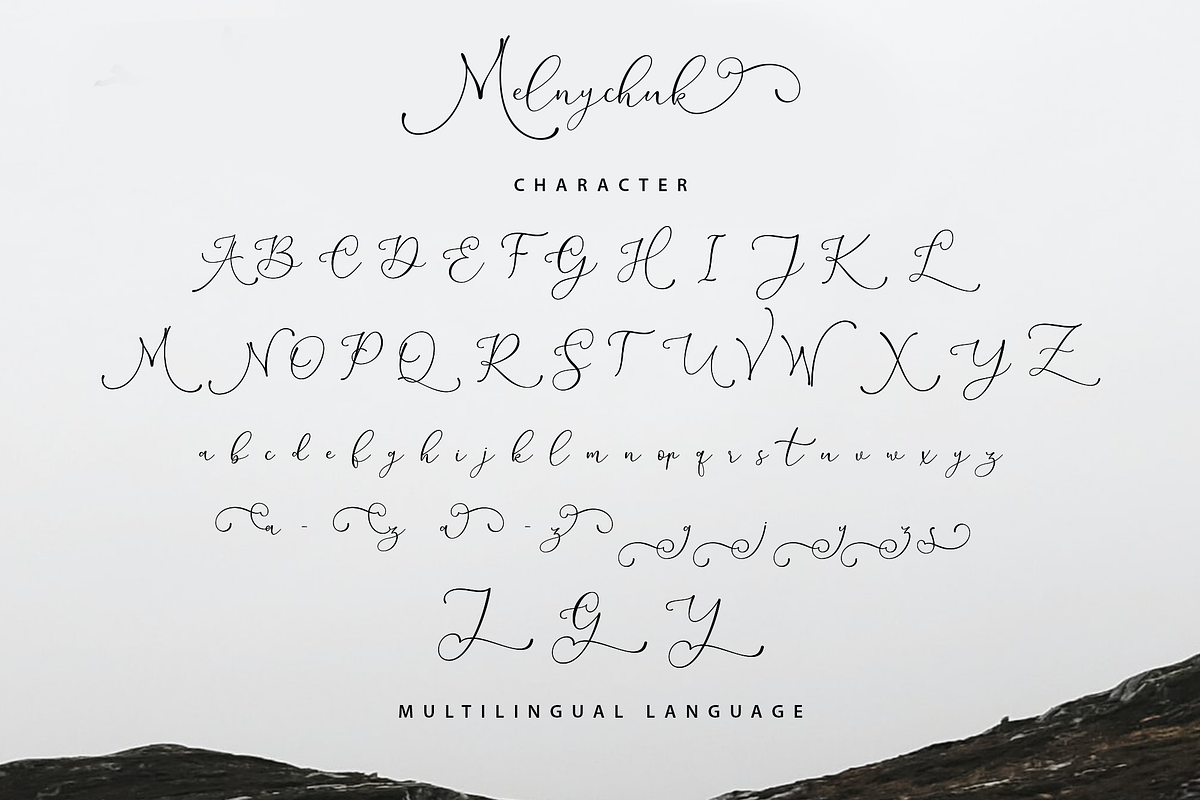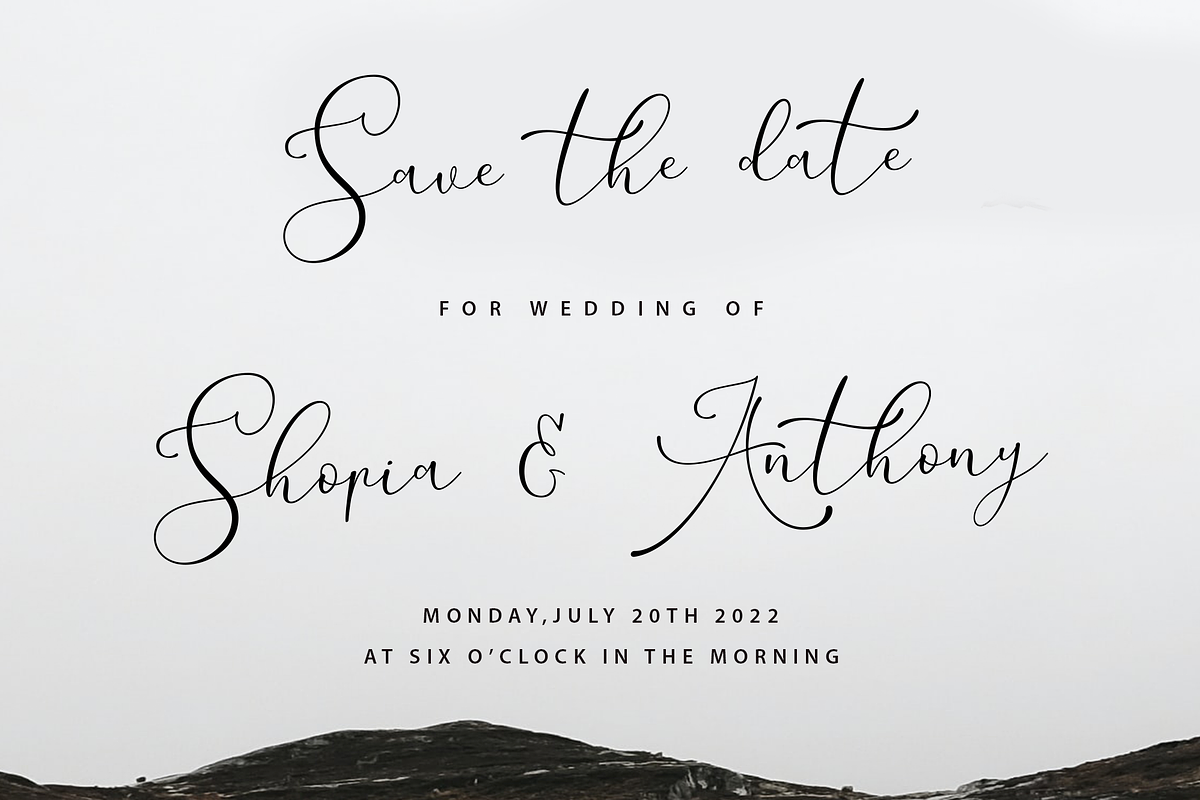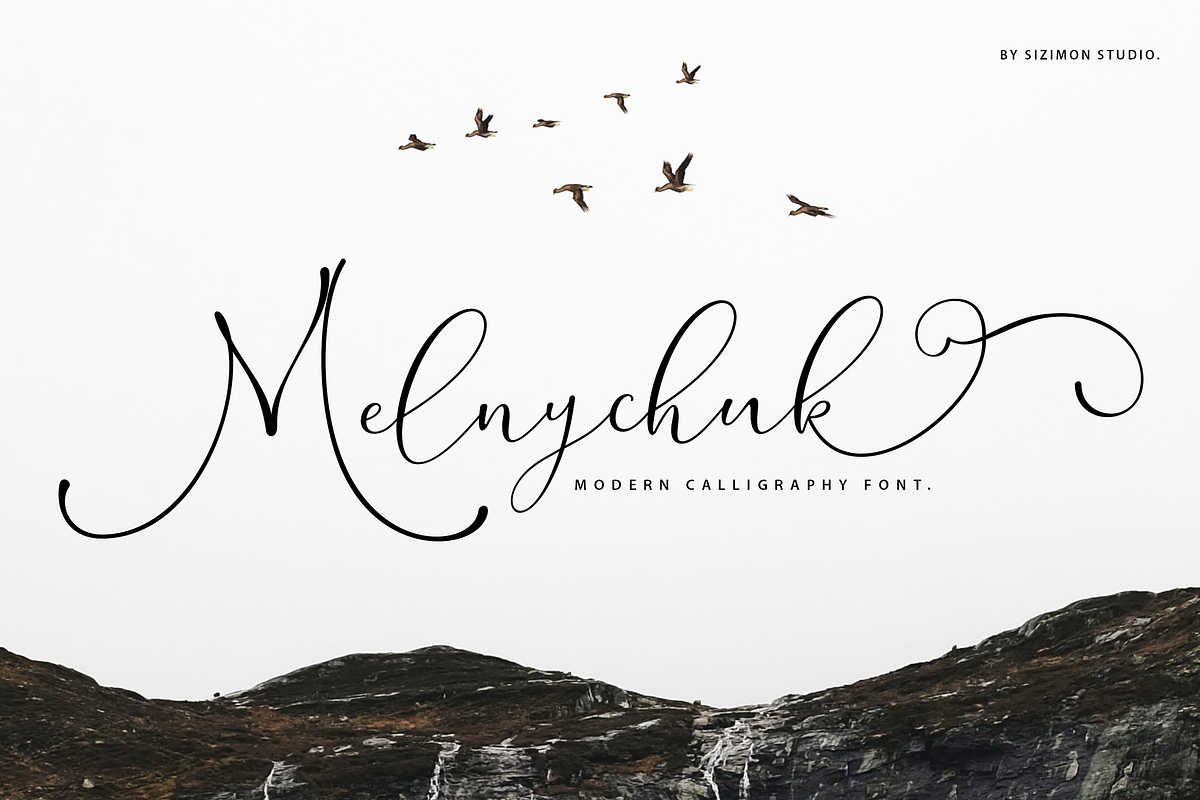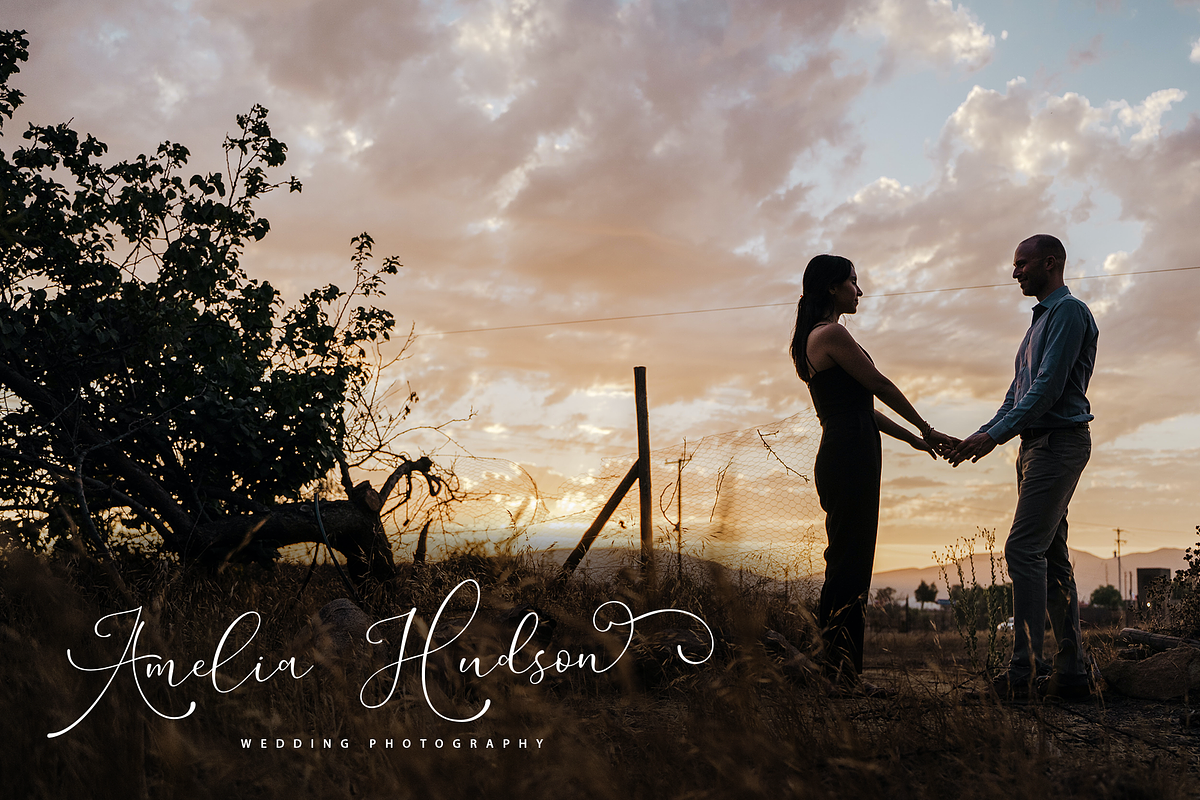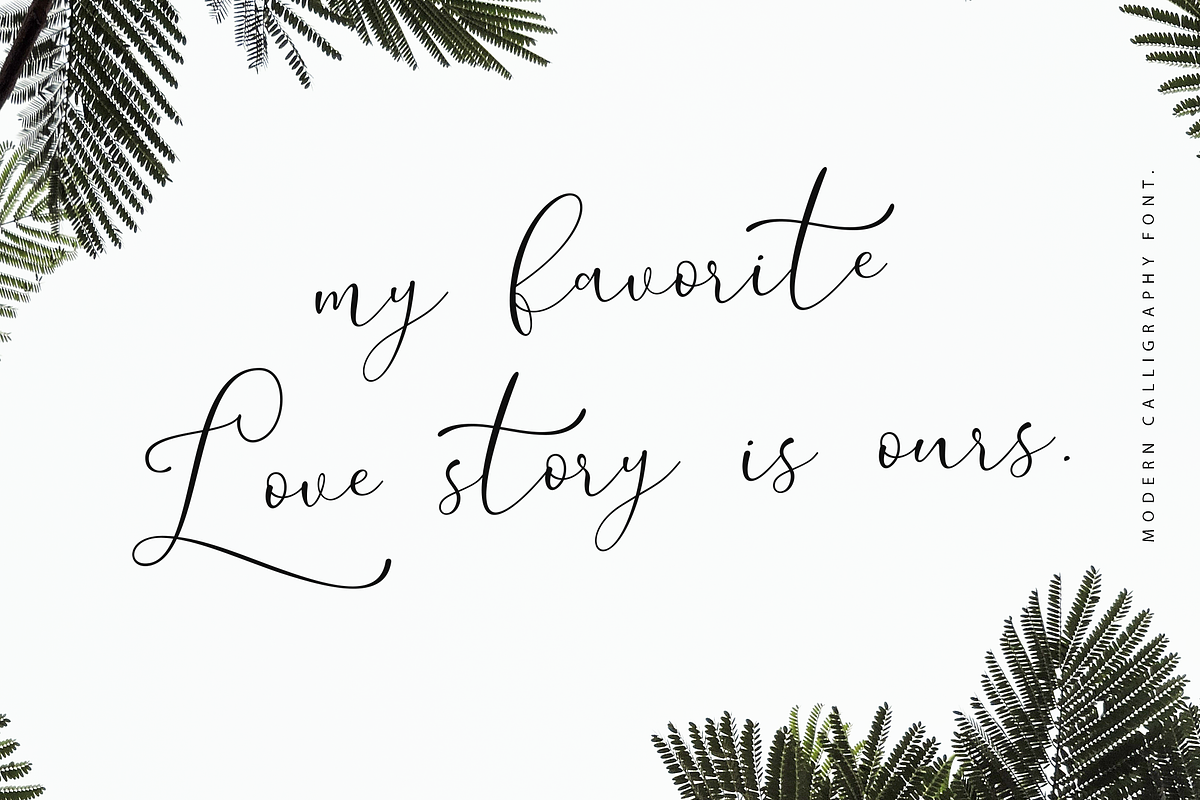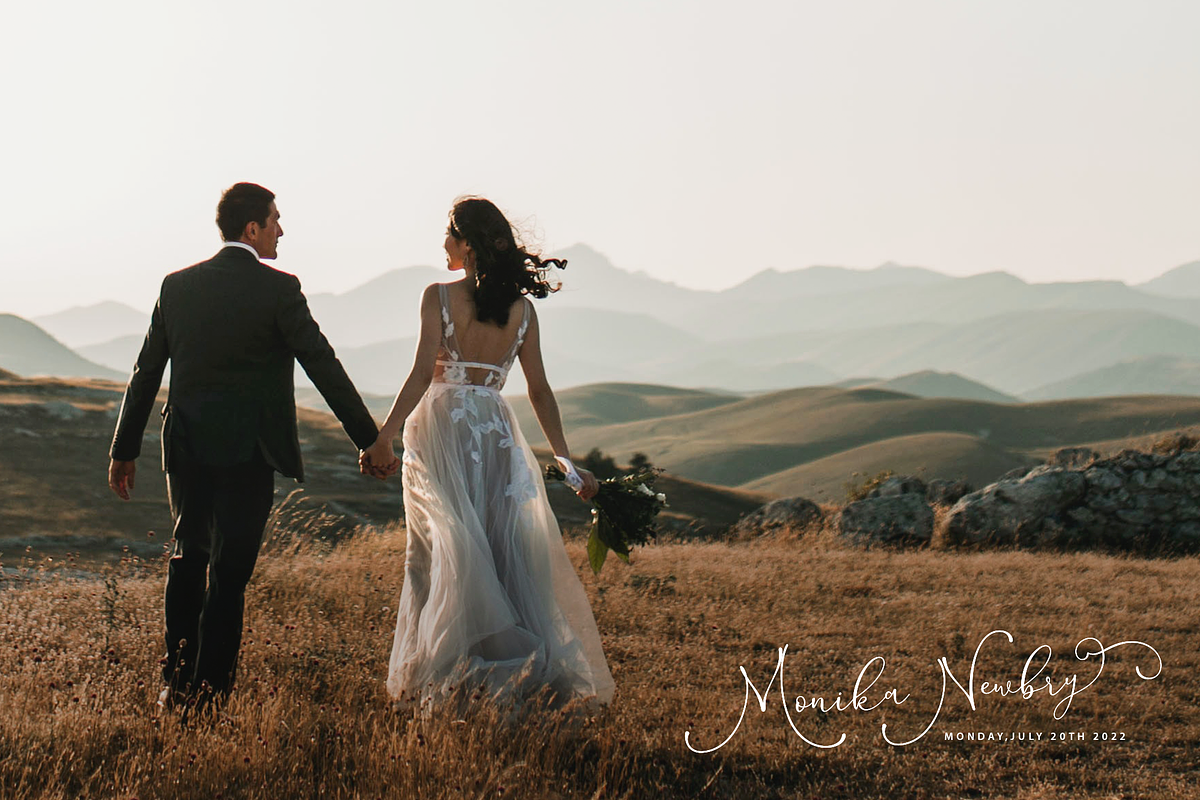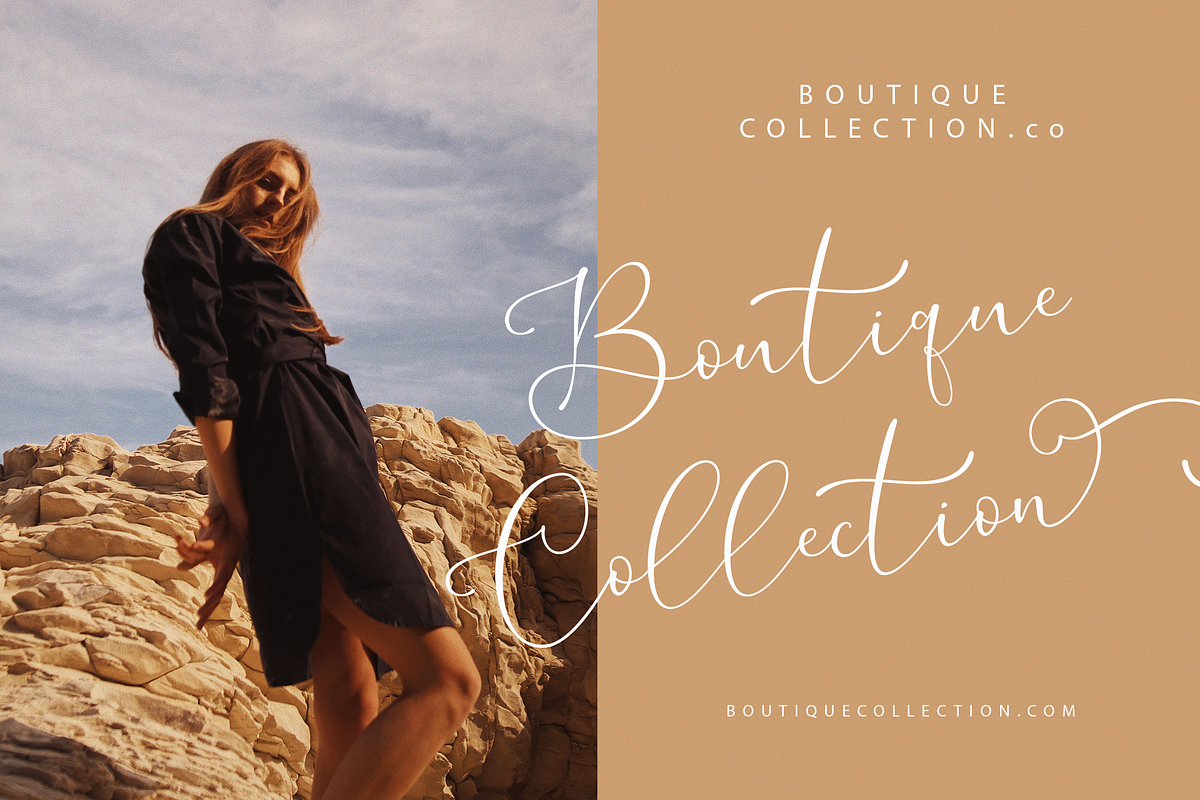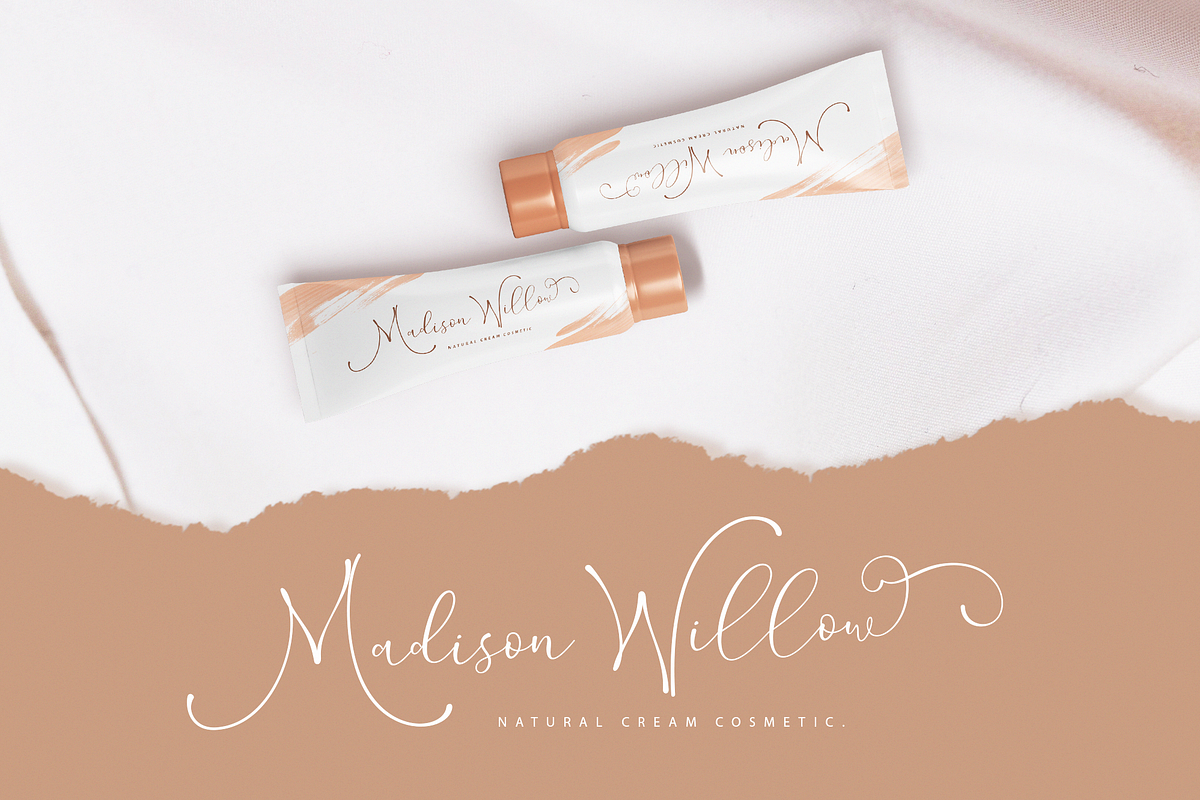
Melnychuk Elegant Script
Introducing our latest product the Melnychuk Font Duo! classy, contemporary pair of script and serif fonts. It is free-flowing, feminine, fashionable and friendly. Melnychuk is perfect for fashion, e-commerce brands, trend blogs, or any business that wants to appear classy and chic.
- Uppercase, lowercase, numeral, punctuation & Symbol
- multilingual support
- Stylistic alternates
- Discretionary ligatures